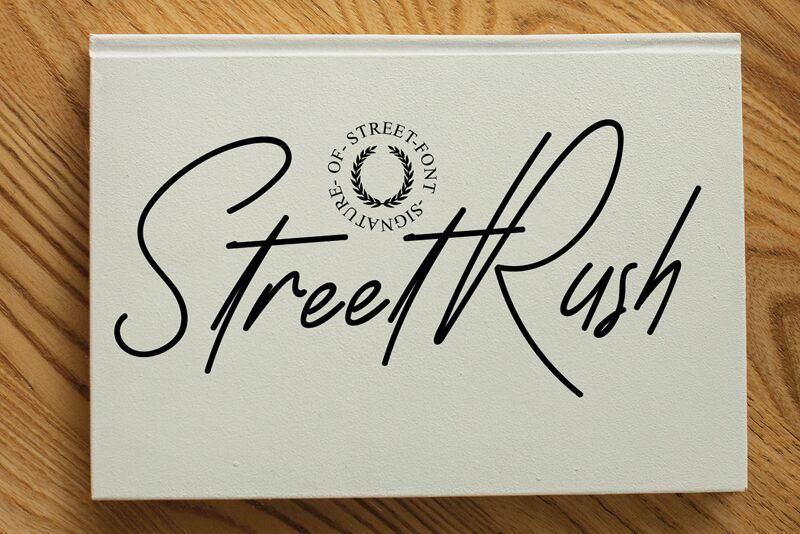
Street Rush
Street Rush font by Erik Studio captures the charm of a light-handed, contemporary handwritten style. Its elegant and flowing design offers a stylish and expressive appeal, making it ideal for projects that need a touch of modern script elegance. Every curve and stroke in this light font delivers an engaging visual impact.